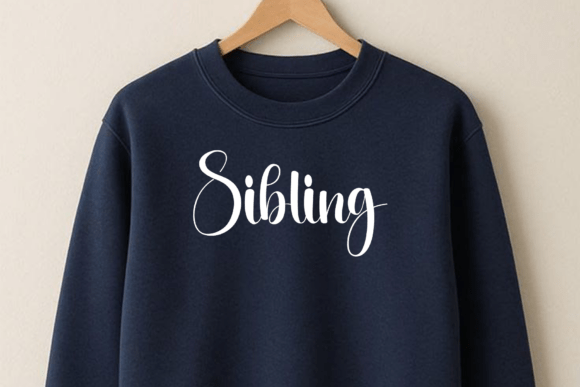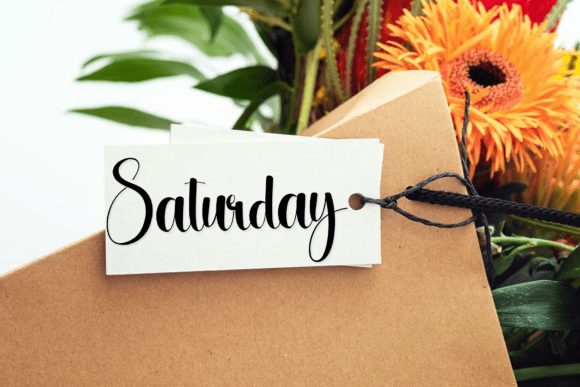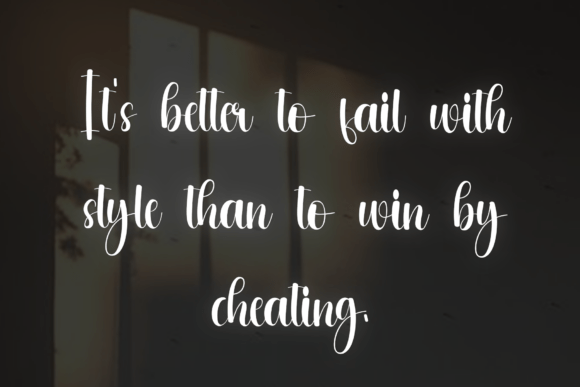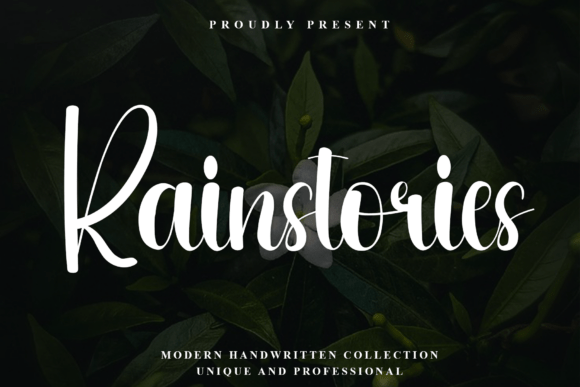
Introduction to Rainstories Font
Rainstories is a beautifully flowing and elegant modern handwritten script font.
Its smooth, generous curves and graceful, elongated strokes give it a sophisticated, signature look This professional and unique typeface is perfect for personal branding, photography watermarks, luxury wedding stationery, editorial design, and any project that requires a sweeping, authentic, and naturally luxurious touch.
Key Features of Rainstories Font